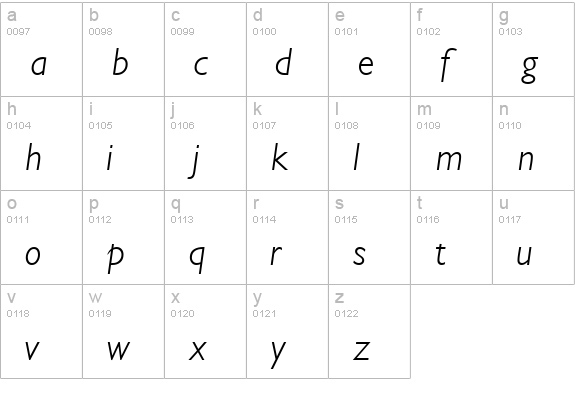
ReparteeSSK Italic Font Details
ReparteeSSK Italic is a distinctive, italic variant in the ReparteeSSK typeface family \xE2\x80\x94 well suited to design and typography projects.
ReparteeSSK Italic font is a stunning and elegant typeface that exudes sophistication and style. Its italic design adds a touch of flair to any project, making it perfect for luxury brands, fashion magazines, or high-end advertising campaigns. This font boasts clean lines and smooth curves, creating a visually pleasing aesthetic that is both modern and timeless. With its subtle slant and graceful letterforms, ReparteeSSK Italic font captures attention and commands respect. Its versatility allows it to be used in a variety of creative applications, from logo designs to headlines and body text. The delicate strokes and unique letter shapes give this font a distinctive look, making it stand out among other typefaces. One of the best things about ReparteeSSK Italic font is that it is freely available to download at FontsMarket.com. This means that you can easily access this beautiful font without any cost, making it a valuable asset for designers and creatives on a budget. Whether you are a professional designer or a hobbyist, this font offers endless possibilities for your creative projects. In addition to its stunning design and accessibility, ReparteeSSK Italic font is also highly legible and readable, ensuring that your message is effectively communicated to your audience. Its carefully crafted letterforms ensure clarity and readability across various mediums, including print and digital platforms. Overall, ReparteeSSK Italic font is a truly remarkable typeface that combines elegance, style, and accessibility. Its free availability at FontsMarket.com makes it an incredible resource for designers and creatives looking to add a touch of sophistication to their projects. With its timeless design and versatility, ReparteeSSK Italic font is a must-have for anyone seeking to elevate their typography game.